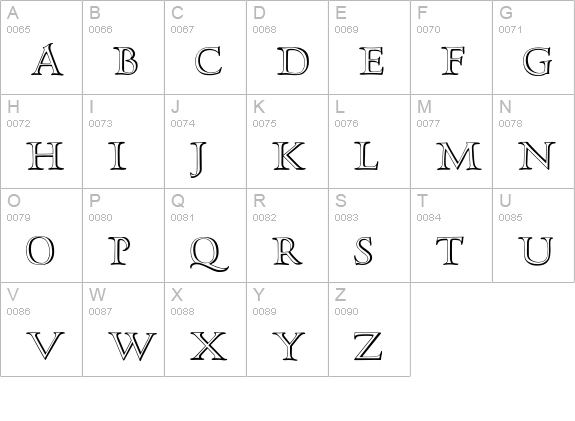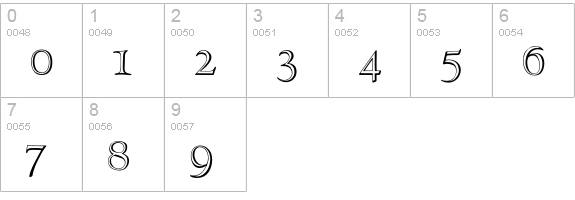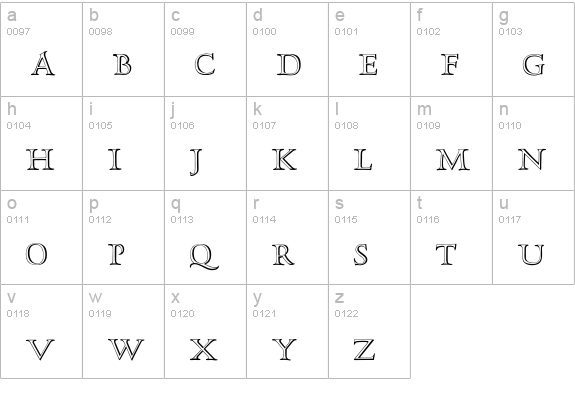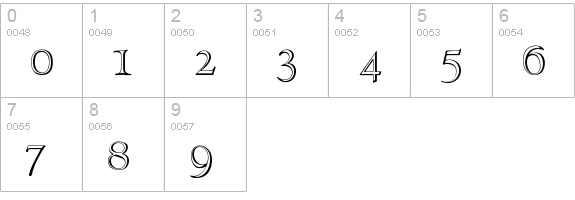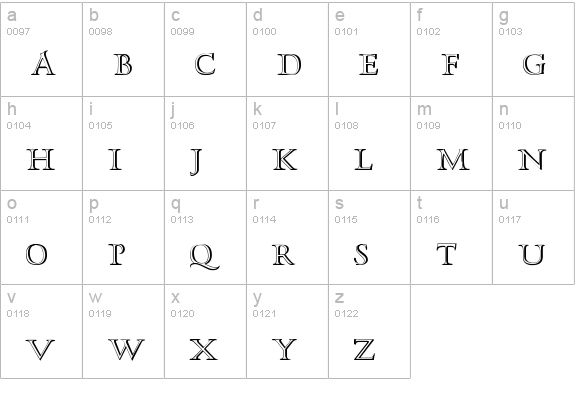
HadrianoStoneCut Font Details
HadrianoStoneCut is a stunningly intricate and versatile font that exudes elegance and sophistication. Its unique design, meticulously crafted by the talented typographer, fuses elements of classic stonecut lettering with a modern twist. The result is a truly captivating typeface that commands attention and adds a touch of refinement to any project. The carefully chiseled edges and bold strokes of HadrianoStoneCut make it a perfect choice for a wide range of applications. Whether it's for logos, headlines, invitations, or editorial designs, this font brings a sense of strength and timelessness to every piece of work. What sets HadrianoStoneCut apart is not just its impeccable aesthetics, but also its versatility. It effortlessly transitions from formal to casual settings, adapting to the tone and style of the content it accompanies. This makes it an ideal choice for branding projects, ensuring consistency and a strong visual identity across various platforms. And the best part? HadrianoStoneCut is available for free! Yes, you heard it right. This exquisite font can be downloaded at FontsMarket.com, a trusted source for high-quality typefaces. This means that you can enhance your designs without breaking the bank, making it accessible to both professional designers and aspiring creatives. So, why wait? Unleash your creativity and elevate your designs with the timeless beauty of HadrianoStoneCut. Download it for free at FontsMarket.com and experience the power of this remarkable font firsthand.